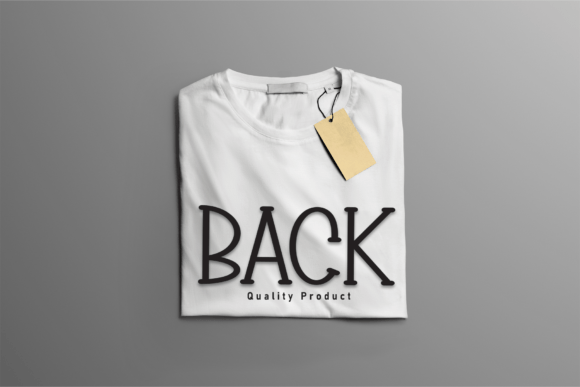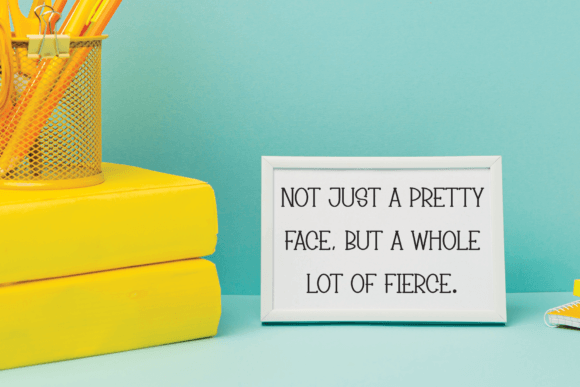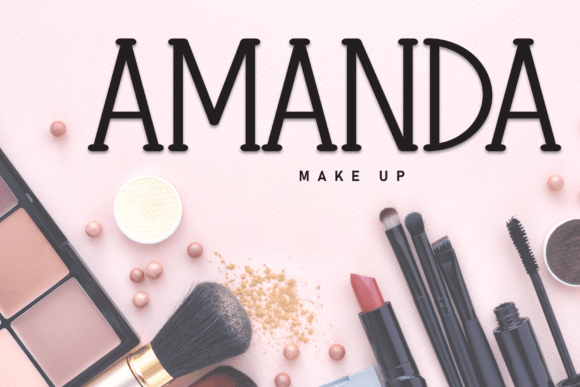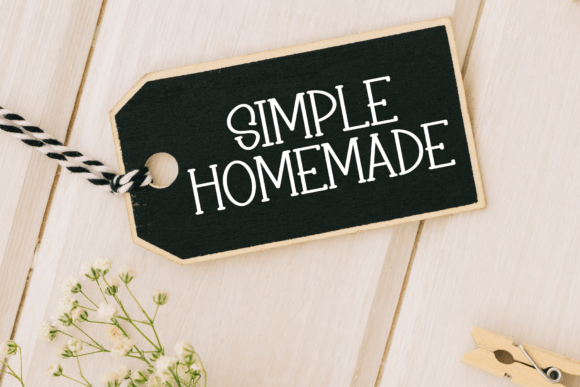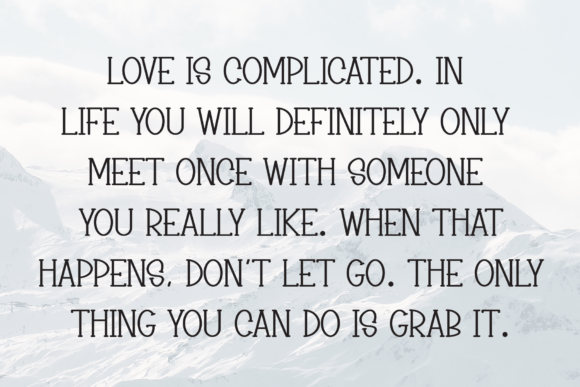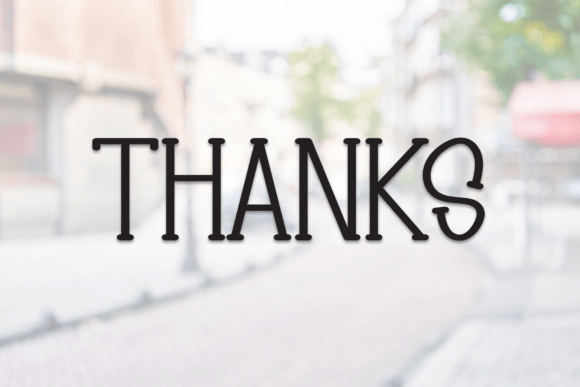
Introducing Amsterdam Font: The Charming Handwritten Display Font
Are you looking for a font that exudes a sense of friendliness and sweetness? Look no further than Amsterdam Font, our newest offering that is sure to add a touch of fun and cuteness to any design. This charming handwritten display font is perfect for designers and crafters who want to create unique and eye-catching designs that stand out from the crowd.
The Personality of Amsterdam Font
Amsterdam Font is more than just a font – it’s a personality. It’s a delightful and charming handwritten display font that injects an effervescent spirit into any creation. With its alluring charisma, this font is sure to make your designs come alive with an exuberant dash of fun. Whether you’re designing wedding invitations, crafting cards, or creating playful designs, Amsterdam Font is the perfect choice.
What Makes Amsterdam Font Special?
So, what makes Amsterdam Font so special? Here are a few features that set it apart:
- Handwritten with love: Amsterdam Font is a handwritten font that is crafted with love and care. Each letter is carefully designed to give it a personal and unique touch.
- Delightful personality: This font exudes a sense of friendliness and sweetness that is sure to make your designs stand out.
- Perfect for designs: Amsterdam Font is perfect for a variety of designs, including wedding invitations, cards, and playful designs.
Use Cases for Amsterdam Font
Amsterdam Font is a versatile font that can be used for a variety of designs. Here are a few use cases to get you started:
- Wedding invitations: Add a touch of elegance and sophistication to your wedding invitations with Amsterdam Font.
- Cards: Create unique and eye-catching cards for birthdays, holidays, and other special occasions.
- Playful designs: Add a playful touch to your designs with Amsterdam Font. Perfect for children’s products, games, and other fun designs.
- Branding: Use Amsterdam Font to create a unique and memorable brand identity.
Tips for Using Amsterdam Font
Here are a few tips for using Amsterdam Font:
- Use it sparingly: Amsterdam Font is a bold font, so use it sparingly to add emphasis to your designs.
- Pair it with other fonts: Pair Amsterdam Font with other fonts to create a unique and eye-catching design.
- Experiment with colors: Experiment with different colors to find the perfect combination for your design.